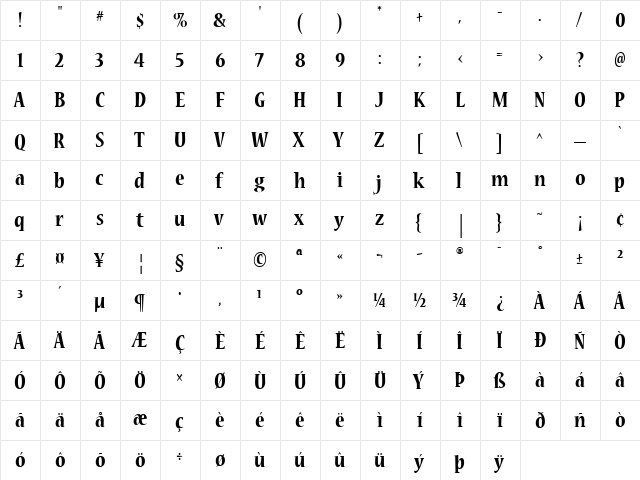
Nueva2 Regular
Design Context for Nueva2 Typeface
Nueva2 is a composed and adaptable typeface that performs quietly and consistently across a wide range of design contexts.